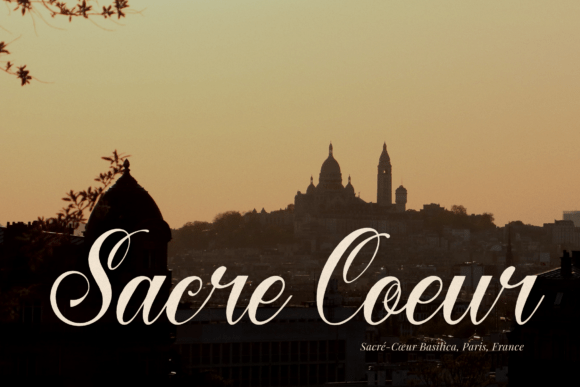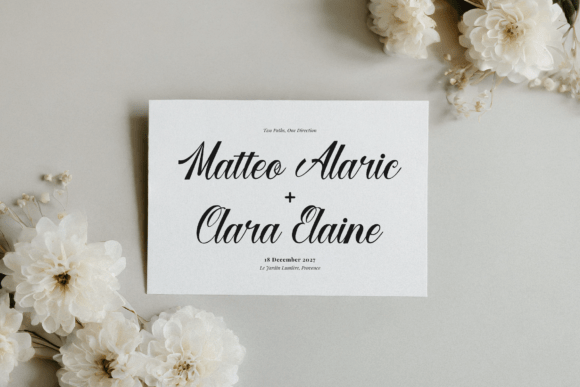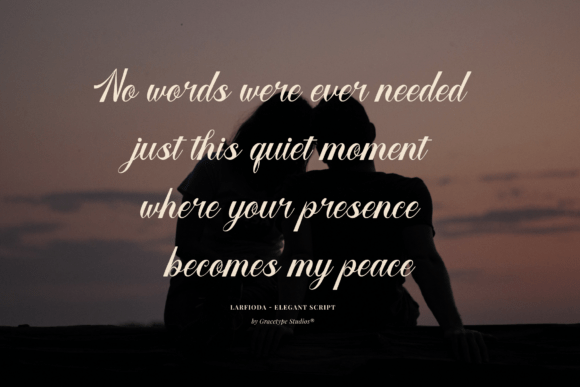
Introduction to Larfioda Font
Imagine you’re browsing through a vintage fashion magazine, and a stunning headline catches your eye. The elegant script font reads like a whisper, transporting you to a world of luxury and sophistication. This is the magic of the Larfioda Font, a refined script typeface that exudes a sense of high-society elegance.
As a designer, you know the value of a high-quality design resource. The Larfioda Font is more than just a pretty face; it’s a versatile tool that can elevate your creative project from ordinary to extraordinary. With its unique blend of vintage and modern elements, this font is perfect for designers looking to add a touch of luxury to their work.
Whether you’re working on a premium beauty packaging design or creating a stately social media header, the Larfioda Font is sure to make a statement. And the best part? It’s available for free download, allowing you to experiment with its possibilities without breaking the bank. So why settle for a generic font when you can have a design element that truly shines?
- Unique characteristics include a modern and sleek design, making it perfect for modern creative projects.
Honest Review: Larfioda Font
I recently came across the Larfioda Font, a creative design resource that caught my attention. This free download is a high quality font that can add a unique touch to any project.
What works well with the Larfioda Font is its versatile nature, allowing designers to experiment with different styles and themes. The font’s transparent background makes it easy to customize and layer with other design elements.
- ✨ Highly customizable
- ✨ Easy to use
- ✨ Great for creative projects
However, there are some limitations to consider. The Larfioda Font may not be suitable for all design projects, particularly those that require a more traditional or formal look. Additionally, the font’s unique style may not appeal to all designers.
- ⚠️ Limited versatility for formal designs
- ⚠️ May not appeal to all designers
Overall, I would say that the Larfioda Font is a solid addition to any designer’s toolkit. While it may not be perfect for every project, it’s a great resource to have on hand for those times when a unique touch is needed.
Tips for Getting the Most Out of Larfioda Font
To get the most out of Larfioda Font, consider using it in conjunction with a transparent background to create a modern and sleek design. You can also experiment with different font sizes and styles to add visual interest to your design.
Larfioda Font is a versatile design resource that can be used in a variety of creative projects, such as designing a logo, creating a social media graphic, or adding typography to a presentation. Its high quality and transparent background make it an ideal choice for designers looking to add a touch of sophistication to their work.